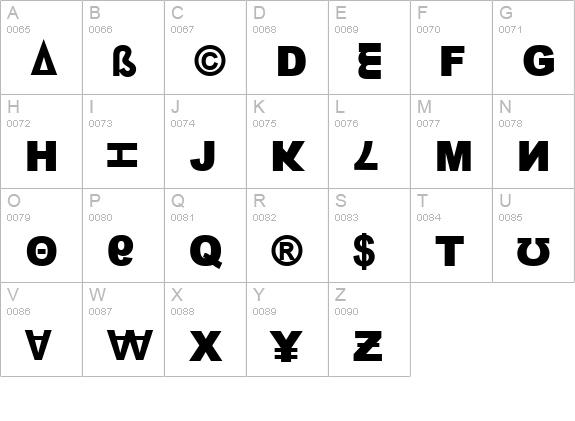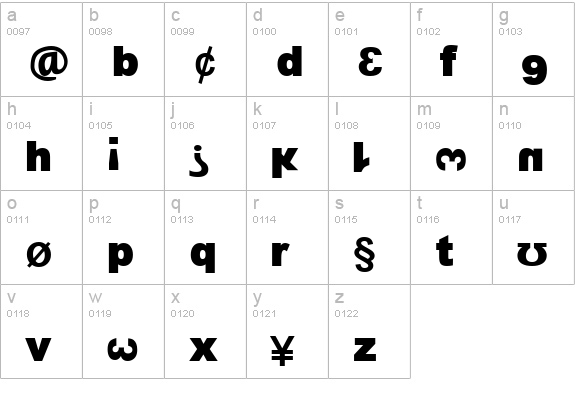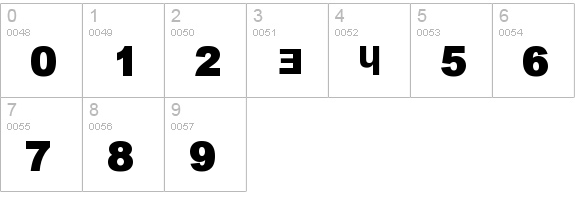
13_Fletcher Font Details
13_Fletcher is a stylish and versatile font that combines traditional elegance with a contemporary twist. Its sleek lines and sharp angles make it perfect for a wide range of design projects, from branding to editorial design. This font exudes sophistication and professionalism, making it a standout choice for anyone looking to elevate their designs. What sets 13_Fletcher apart is not just its design, but also its accessibility. This font is available for free download at FontsMarket.com, making it easy for designers of all levels to incorporate it into their work. Whether you're working on a personal project or a client commission, 13_Fletcher is a reliable choice that will add a touch of class to any design.